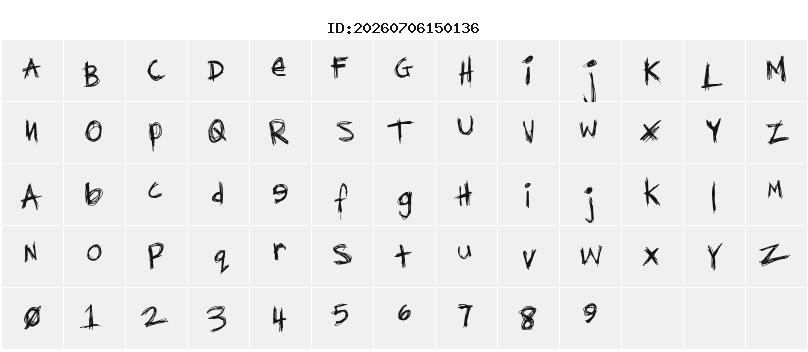
Diediedie Preview
• Font Name: Diediedie
• Designer: Mike Emory
• Manufacturer: Static Type Foundry
• Description: Diediedie is an evil font. Don't accept any packages from this font. If this font shows up on your doorstep in the middle of the night, call the cops. This font sits alone at night under the light of a small desk lamp and writes people's names down on a list. I don't know what this list is for, but I definitely don't trust it. This font collects women's undergarments from the local thrift stores. I've never asked it what it does with them, and I don't plan to. Check out alt-0192 to alt-0211 for a few surprises. And listen to my band- www.geocities.com/humanxmas This font is free for personal use. Don't use this font for any commercial work without emailing me for licensing terms- statictype@yahoo.com